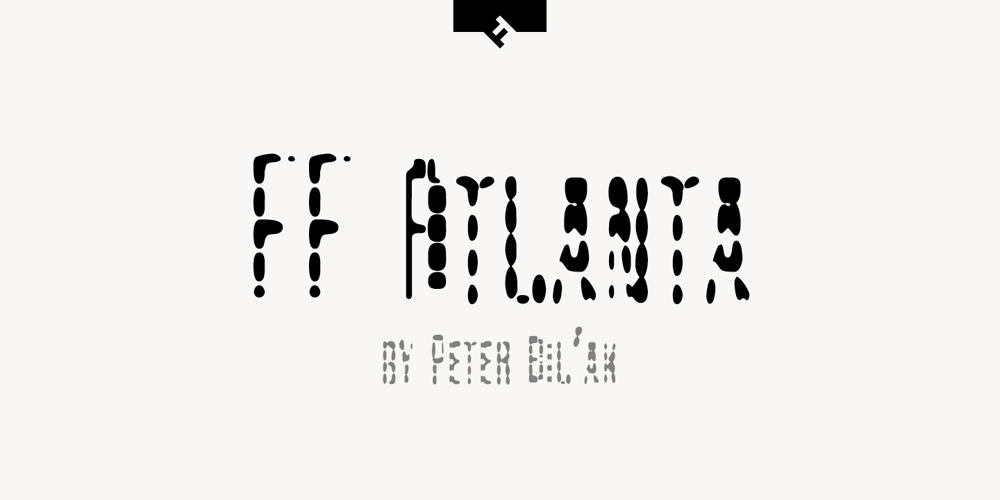
FF Atlanta Font Family was designed by Peter Bil’ak and published by FontFont. FF Atlanta contains 3 styles and family package options. Slovakian type designer Peter Bil’ak created this display FontFont in 1995. The family contains 3 weights: Extra Light, Regular, and Extra Bold and is ideally suited for festive occasions, logo, branding and creative industries, music and nightlife as well as sports. FF Atlanta provides advanced typographical support with features such as ligatures and case-sensitive forms. It comes with proportional oldstyle and proportional lining figures.